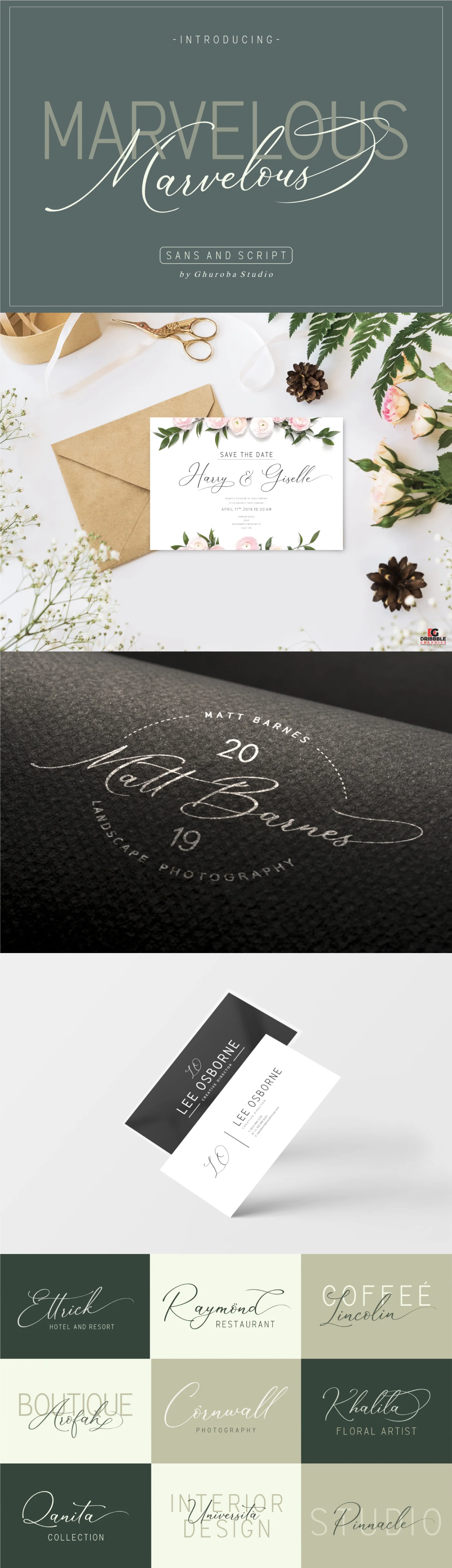
The Marvelous Font Duo, from Ghuroba Studio, is a stunning pair of a beautiful script and a sans serif font, which are designed to complement each other with elegant beauty and contemporary style.
These are perfect for branding, invitations, business cards, weddings, logo, qoutes, product packaging and many more.